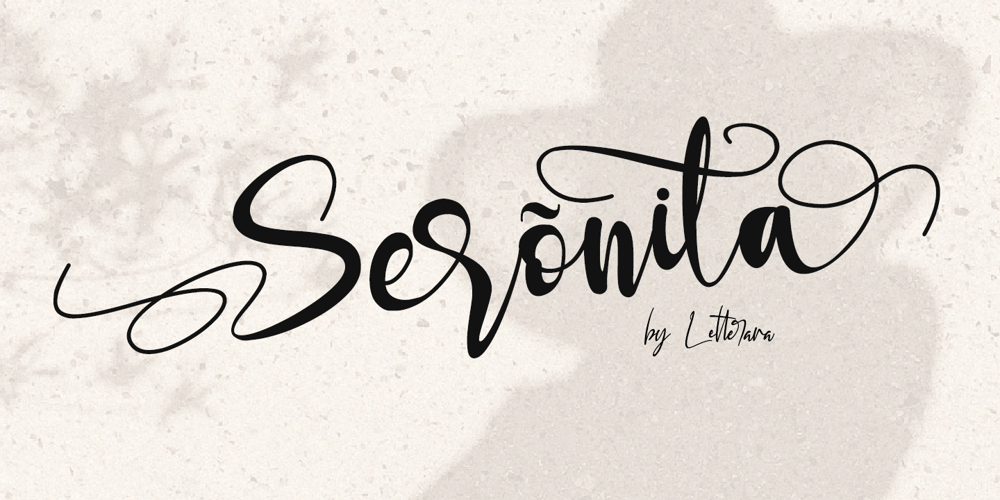
Seronita
Seronita font
Seronita Font Family was designed by Thomas Aradea and published by Letterara. Seronita contains 2 styles and family package options. Seronita is a modern calligraphy font. It has a natural writing style and is perfect for adding an elegant and luxurious feel to your designs.